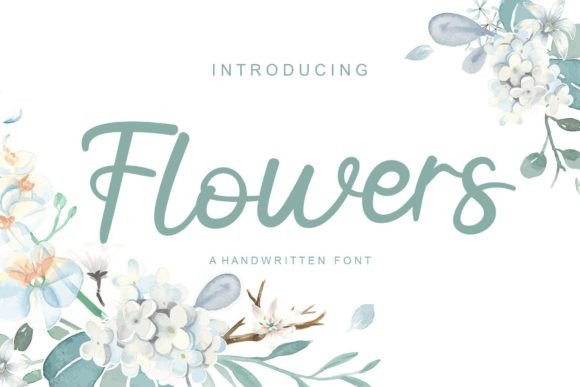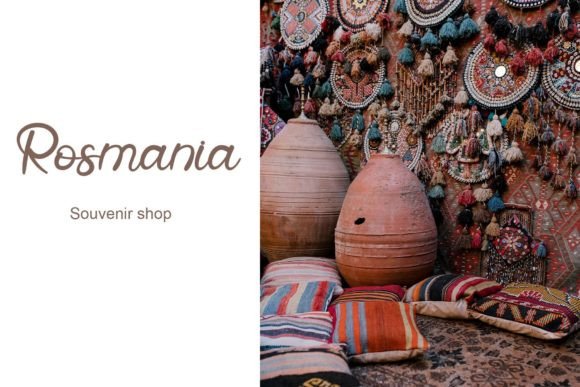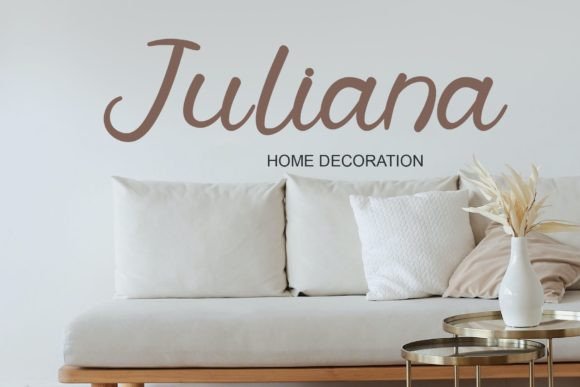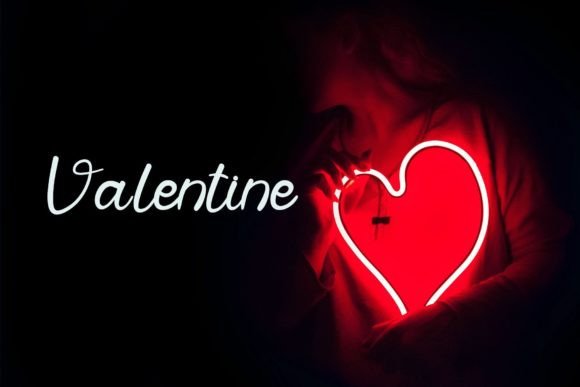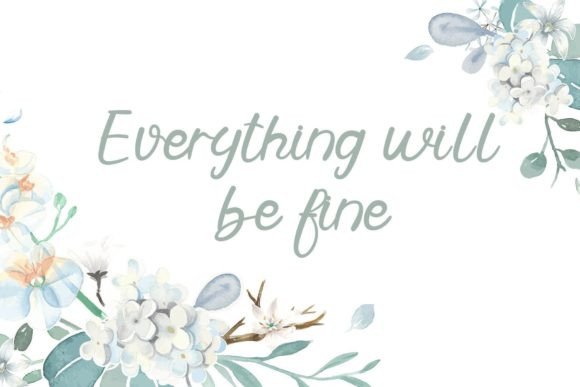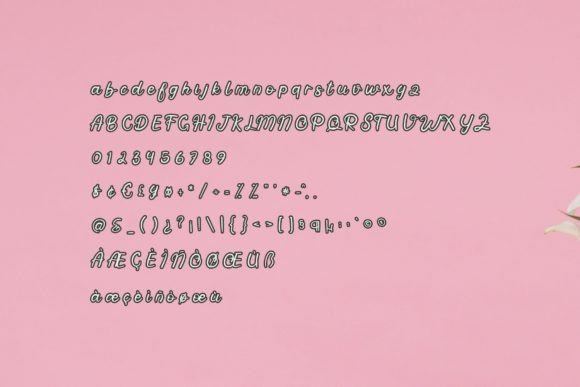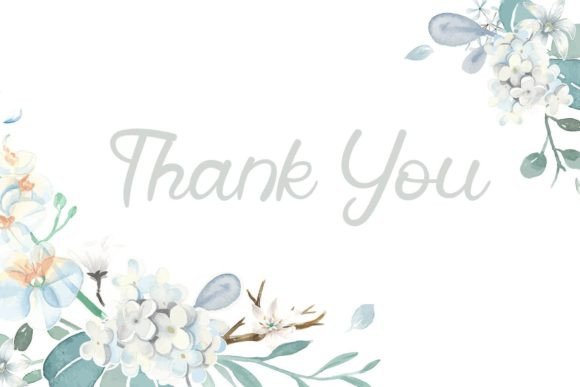
Flowers Font
About Flowers Font
Flowers is not just a font; it’s a bouquet of sweetness and beauty, capturing the essence of elegance and charm in its handwritten strokes. This font is a delightful masterpiece, featuring characters that gracefully dance along the baseline, creating an enchanting visual rhythm. With its sweet and beautiful design, Flowers adds a touch of luxury to any design project, making it a perfect choice for those looking to infuse their creations with a sense of sophistication and allure.
Imagine Flowers gracing a wedding invitation. The font’s graceful and delicate characters lend an air of romance and enchantment to the invitation, setting the stage for a dreamy and memorable celebration. Each letter flows like a petal in the wind, creating a harmonious composition that reflects the beauty and tenderness of the occasion. Flowers transforms ordinary invitations into exquisite keepsakes, leaving a lasting impression on every recipient.
In greeting cards and love notes, Flowers adds a touch of genuine emotion. Its handwritten charm evokes warmth and affection, making heartfelt messages even more meaningful. Whether you’re expressing love on Valentine’s Day, celebrating an anniversary, or sending a thoughtful note just because, the font’s sweet demeanor enhances the sincerity of your words, creating a heartfelt connection with the reader.
Flowers also lends itself beautifully to branding and packaging designs. Picture this elegant font gracing a perfume label or a beauty product packaging. Its luxurious spark elevates the product, conveying a sense of opulence and refinement. In the world of business cards and logos, Flowers adds a touch of sophistication, making a bold statement about the brand’s elegance and style.
The font’s ability to dance along the baseline adds a dynamic and playful element to various design projects. Whether you’re creating social media graphics, blog headers, or event posters, Flowers’ lively characters breathe life into the design, capturing attention and creating a sense of allure. Its versatility makes it a valuable asset for designers seeking to add a luxurious spark to their creative endeavors.
In summary, Flowers is more than just a font; it’s a manifestation of sweetness, beauty, and luxury. Its graceful characters and captivating charm make it a perfect choice for wedding invitations, greeting cards, branding, and various other design projects. So, embrace the enchanting allure of Flowers and let its handwritten elegance transform your creations into captivating works of art that leave a lasting impression on anyone who experiences them.